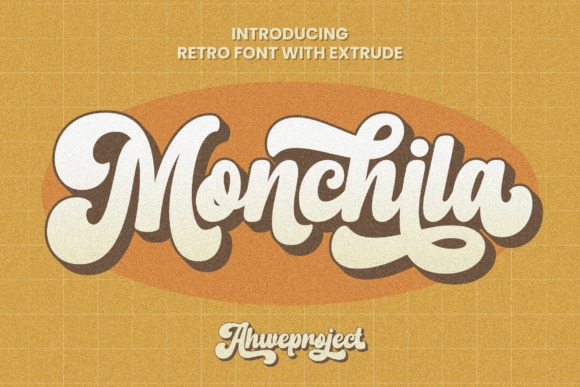
Introducing Monchila Font, a captivating retro-style script display font that transports you back to the alluring charm of yesteryears. Crafted by the talented ahweproject, Monchila is a visual masterpiece that captures the essence of vintage aesthetics, making it the perfect choice for designers seeking to add a touch of nostalgia and timeless appeal to their creative projects.
Journey into a realm of creativity with Monchila, where each letter dances with a unique personality, exuding charm and elegance. Its carefully crafted curves and playful swashes evoke a sense of nostalgia and warmth, adding a captivating touch to your designs. Let Monchila elevate your posters, stickers, apparel, and social media posts, transforming them into captivating works of art that resonate with your audience.
With Monchila's PUA encoding, unleash a world of possibilities. Effortlessly access a treasure trove of glyphs and swashes, opening up endless opportunities for customization and creative expression. Experiment with different combinations, create stunning monograms, or add intricate details to your designs - the possibilities are boundless.
Monchila is more than just a font; it's a gateway to a bygone era, where nostalgia meets modernity. Step into a world of vintage allure, where your designs come alive with the spirit of the past. Whether you're creating retro-inspired posters, eye-catching stickers, timeless apparel, or captivating social media posts, Monchila is your trusted companion, transforming your creative visions into tangible masterpieces.
Embrace the timeless beauty of Monchila and watch as your designs transcend the ordinary, captivating your audience with their charm and authenticity. Let Monchila be your guide as you embark on a creative journey that blends the past with the present, creating designs that resonate with the hearts and minds of your audience.